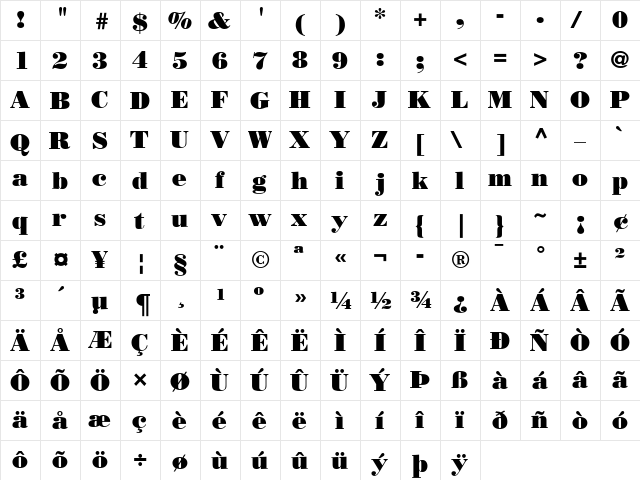
Bodoni Poster Regular
Design Context for Bodoni Poster Typeface
Bodoni Poster is a composed and adaptable typeface that performs quietly and consistently across a wide range of design contexts.
Pro Tip: Pair Bodoni Poster with a font of contrasting weight or personality to build a more expressive typographic hierarchy.